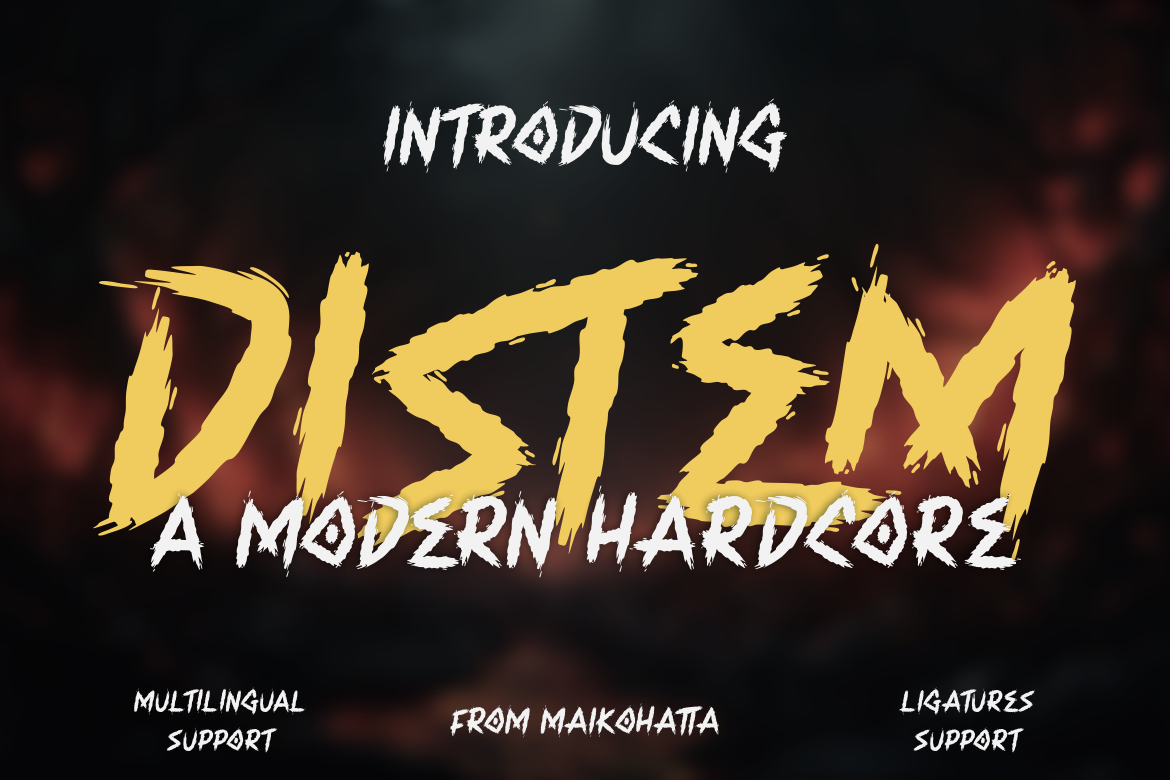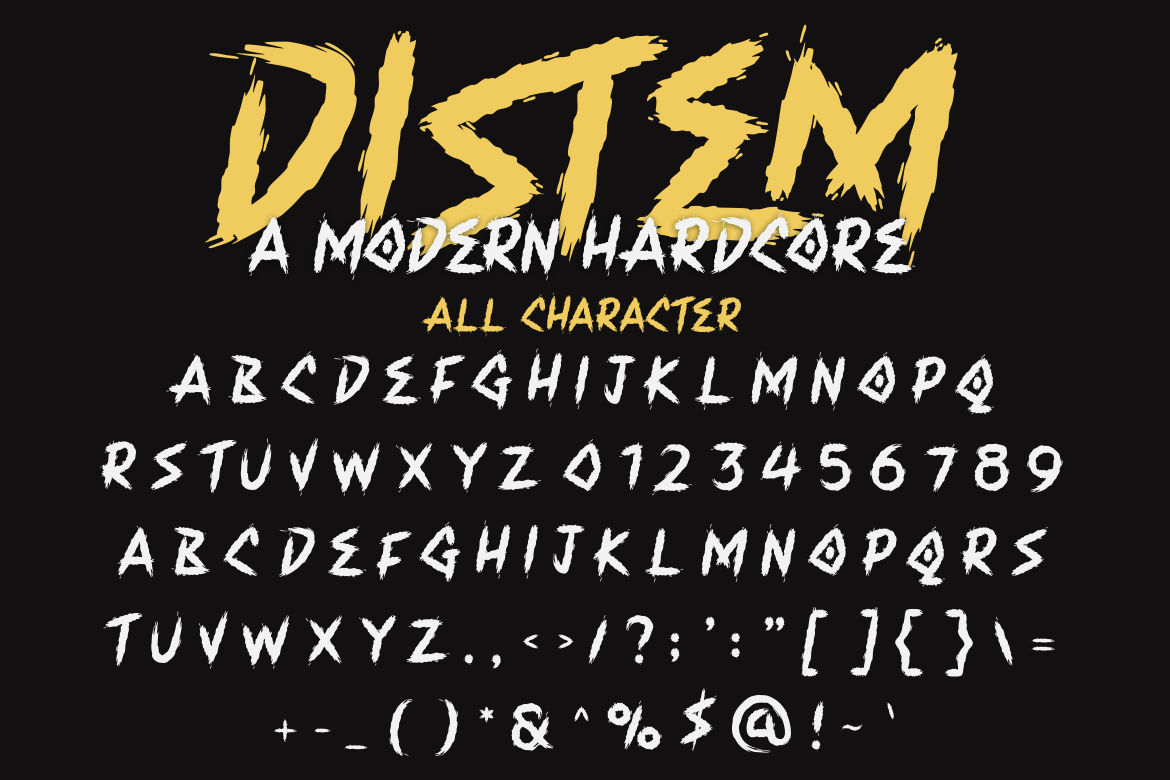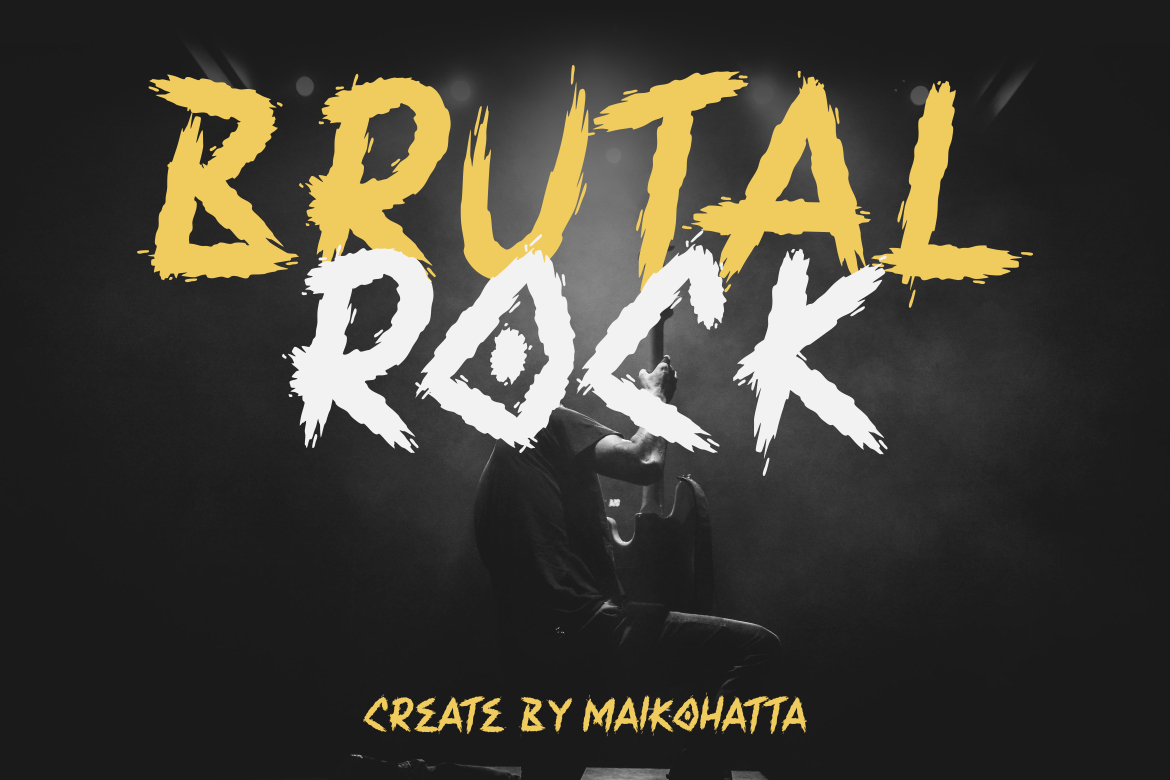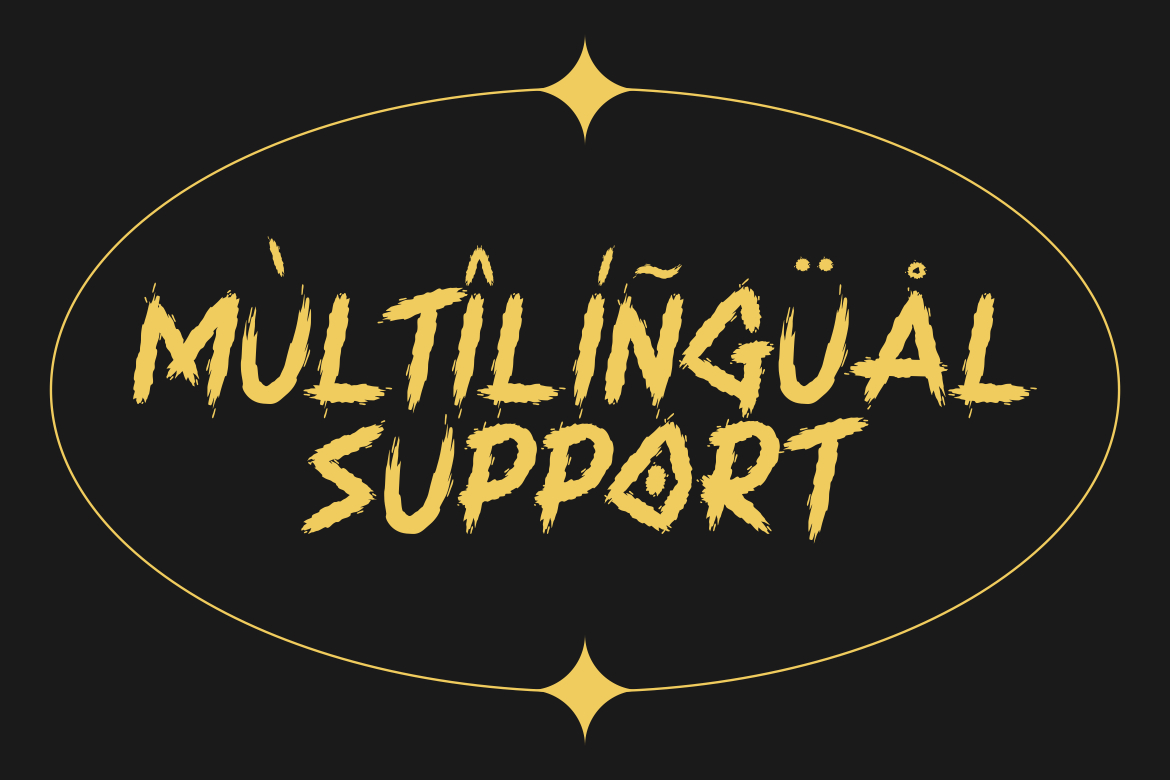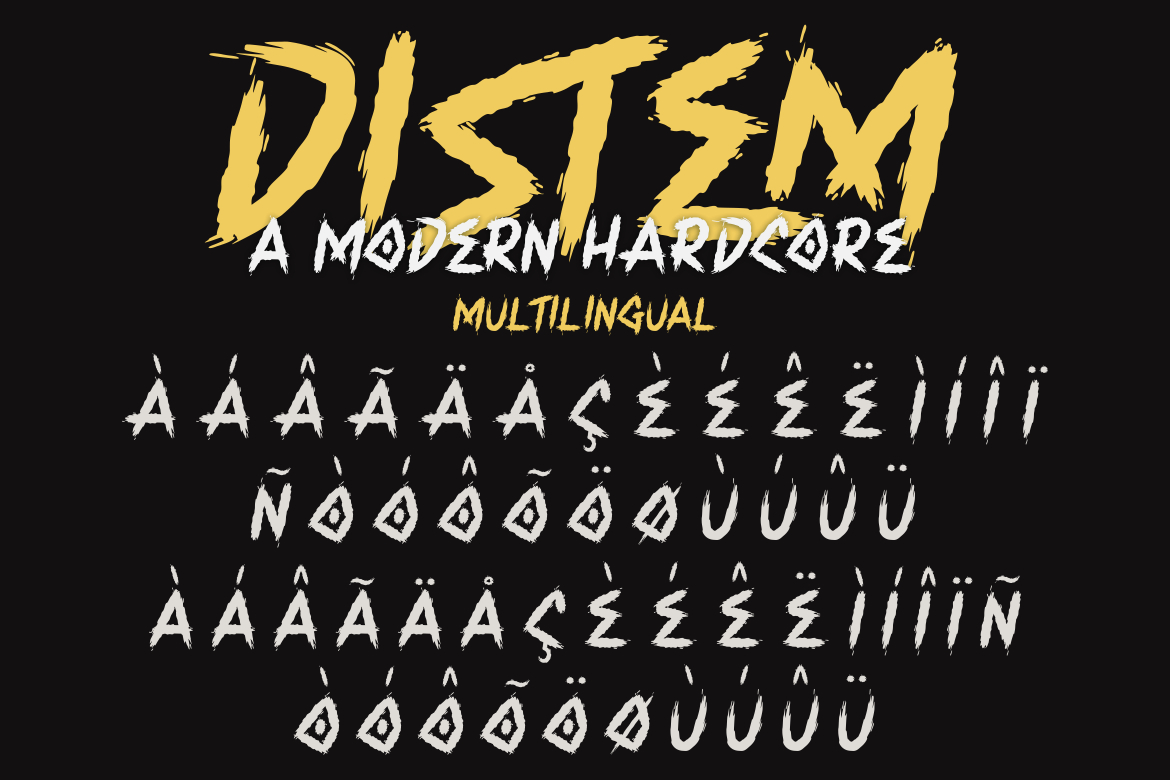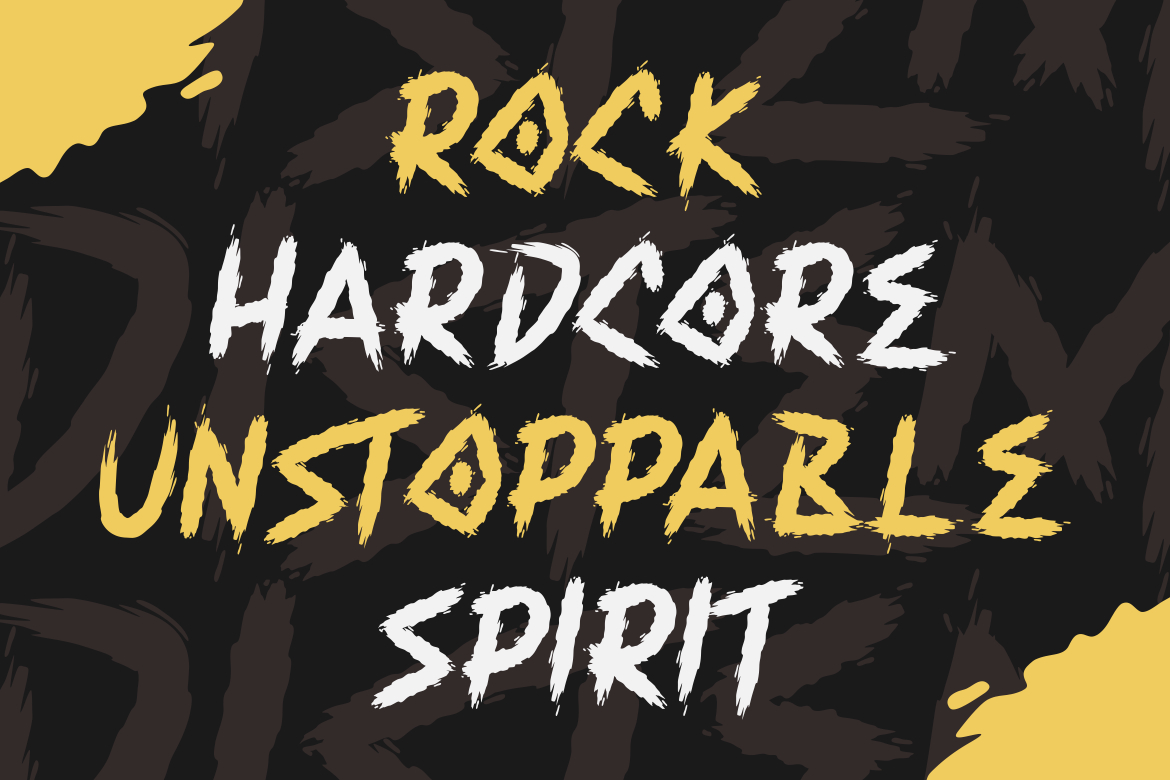
Distem Font
About Distem Font
Distem  is a bold and thick lettered blackletter font. Add it confidently to your projects, and you will love the results.